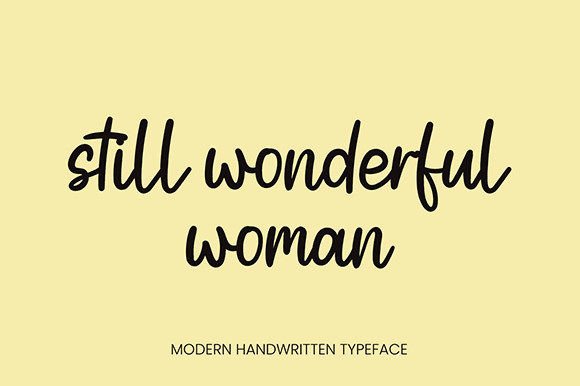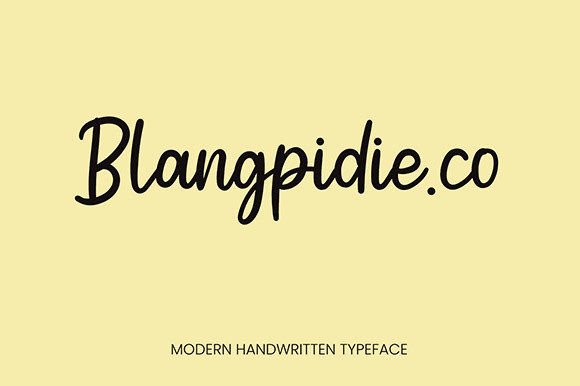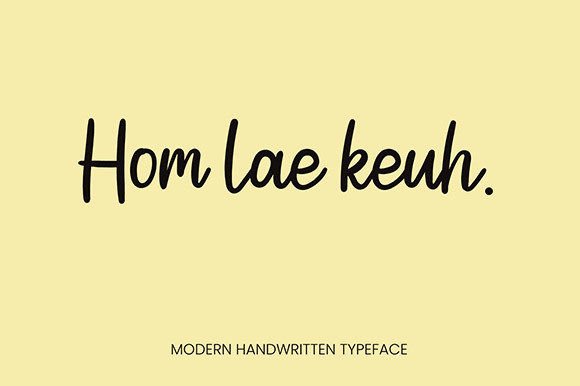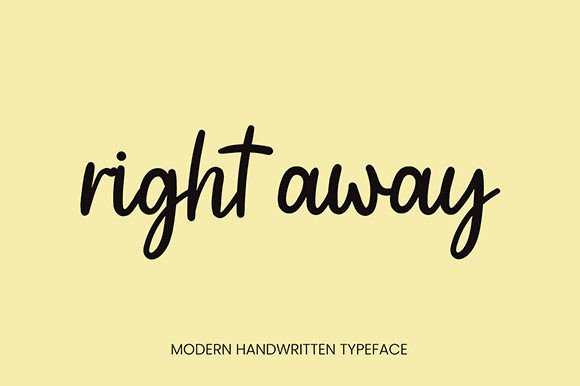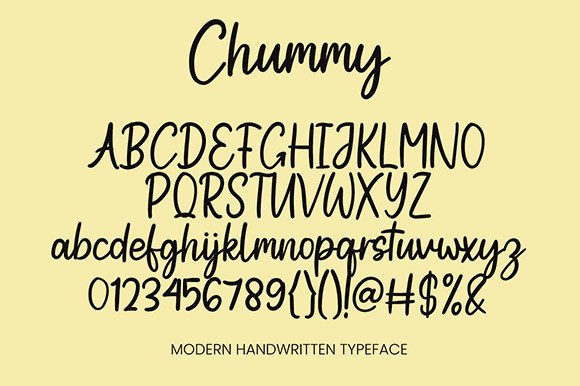
Discover the Charm of Chummy Font: Elevate Your Designs with a Modern Handwritten Typeface
In the world of typography, fonts play a crucial role in conveying the tone and personality of a design. For designers and crafters looking for a modern and stylish handwritten font, Chummy Font is an excellent choice. This versatile typeface is perfect for a wide range of projects, from quotes and logos to blog headers, posters, and more.
What is Chummy Font?
Chummy font is a modern handwritten typeface that brings a fresh and unique style to the world of typography. Its elegant and flowing lines make it perfect for designs that require a personal touch. Whether you’re working on a logo, blog header, or invitation, Chummy Font is sure to add a touch of sophistication and charm.
Key Features of Chummy Font
- Modern and stylish: Chummy Font boasts a contemporary design that’s perfect for designers and crafters looking for a fresh and unique typeface.
- Handwritten style: The font’s handwritten style adds a personal touch to any design, making it perfect for projects that require a human touch.
- Versatile: Chummy Font is suitable for a wide range of projects, from quotes and logos to blog headers, posters, and more.
- Elegant and flowing lines: The font’s elegant and flowing lines make it perfect for designs that require a touch of sophistication.
Uses of Chummy Font
Chummy Font is perfect for a wide range of projects, including:
- Quotes: Add a touch of elegance to your quotes with Chummy Font.
- Logos: Create a unique and memorable logo with Chummy Font.
- Blog headers: Elevate your blog headers with a stylish and modern typeface.
- Posters: Create eye-catching posters with Chummy Font.
- Ribbons: Add a touch of elegance to your ribbons with Chummy Font.
- Fashion and clothing: Use Chummy Font to create stylish and modern designs for fashion and clothing brands.
- Letters and invitations: Add a personal touch to your letters and invitations with Chummy Font.
- Stationery: Create stylish and modern stationery with Chummy Font.
Why Choose Chummy Font?
There are many reasons why designers and crafters choose Chummy Font for their projects. Here are a few:
- Unique style: Chummy Font boasts a unique and modern style that’s sure to make your designs stand out.
- High-quality design: Chummy Font is designed with high-quality lines and elegant curves, making it perfect for professional designs.
- Versatility: The font is suitable for a wide range of projects, making it a great addition to any designer’s toolkit.
| Font Name | Chummy Font |
| Author | chatype studio |
In conclusion, Chummy Font is a modern handwritten typeface that’s perfect for designers and crafters looking for a stylish and versatile font. Its elegant and flowing lines make it perfect for a wide range of projects, from quotes and logos to blog headers and posters. With its unique style, ease of use, and high-quality design, Chummy Font is a great choice for any designer or crafter looking to elevate their designs.